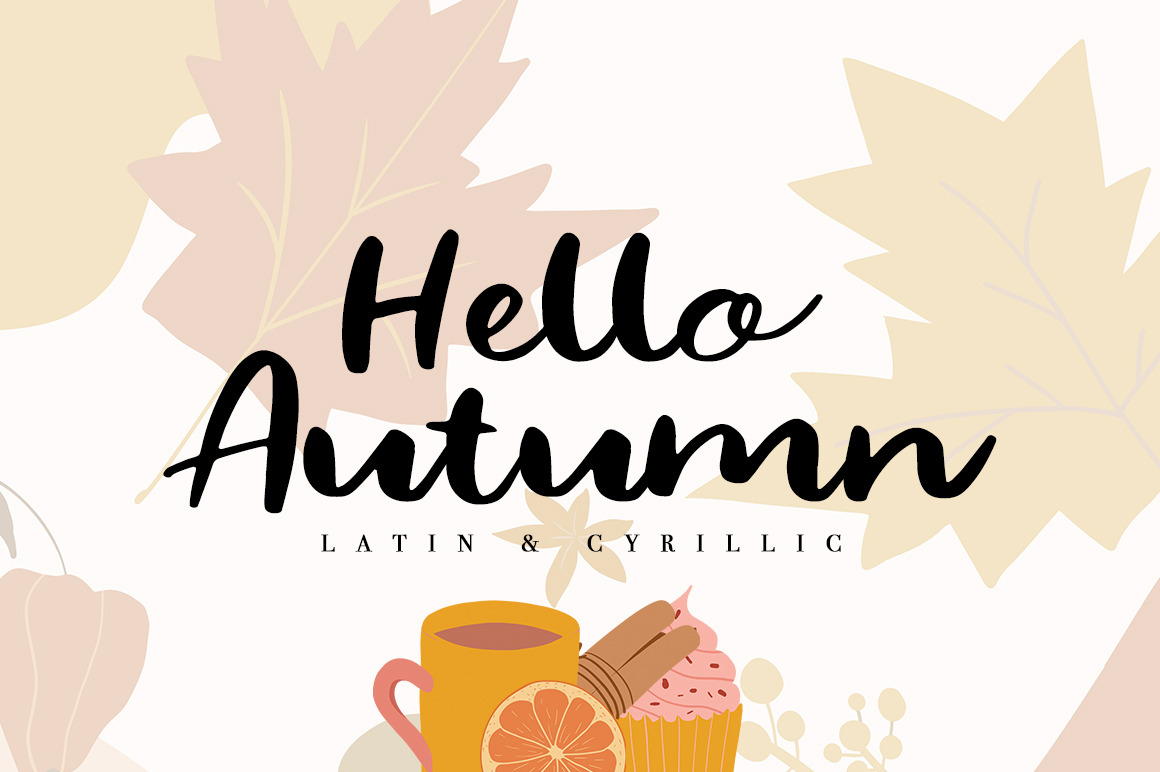
Hello Autumn/Latin & Cyrillic
Hello Autumn Font is perfect for seasonal marketing campaigns, cozy café branding, harvest festival materials, fall fashion collections, pumpkin spice product packaging, autumn wedding invitations, seasonal greeting cards, and warm advertising projects. This welcoming typeface works beautifully in both digital applications and print media where seasonal charm and autumnal warmth are essential design elements.
What makes Hello Autumn Font so exciting is its cheerful interpretation of fall's golden embrace through friendly letterforms that seem to dance with the same joyful energy and cozy comfort that defines the most beloved autumn traditions and seasonal celebrations. The font features warm characters with harvest proportions, friendly curves, and seasonal details that create an immediate atmosphere of comfort, gratitude, and the welcoming spirit of autumn gatherings. Its cheerful personality and seasonal inspiration make it ideal for brands seeking to communicate seasonal joy, comfort experiences, and the heartwarming traditions that make autumn the most beloved season for many families.
The Hello Autumn Font family includes multiple weight variations with different seasonal intensities, along with harvest-inspired alternates and autumnal ornamental elements. Each style maintains the typeface's welcoming character while offering comprehensive character sets including seasonal numerals, autumn-focused punctuation marks, and special symbols designed to enhance fall communications and seasonal branding efforts across various cozy contexts.
This extraordinary typeface represents the perfect marriage of seasonal celebration and contemporary design functionality for lifestyle and hospitality industries. Whether you're developing seasonal product campaigns, creating autumn event materials, or designing fall celebration promotions, Hello Autumn Font Free Download provides the seasonal warmth and versatility needed to capture the magic of autumn. The font's harvest appeal makes it particularly effective for seasonal retailers, cozy restaurants, fall festivals, and businesses celebrating the comfort and joy of autumn traditions and seasonal gatherings.
The carefully crafted seasonal details and optimized autumnal performance in Hello Autumn Font ensure both festive authenticity and clear communication across all fall applications. Its welcoming presence makes it perfect for seasonal branding, autumn marketing materials, and harvest communications where its full autumnal character can create lasting connections with audiences seeking the warmth, comfort, and joyful traditions that make autumn a season of gratitude and togetherness.